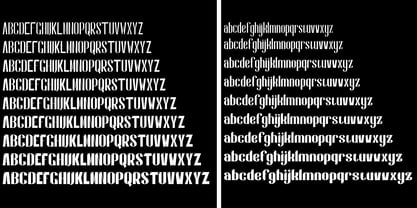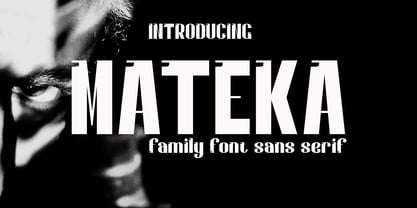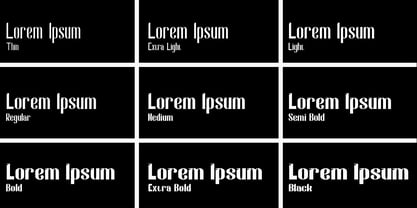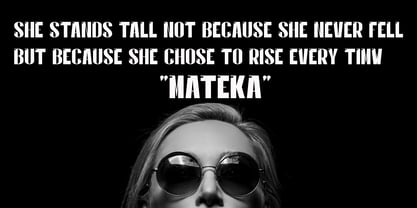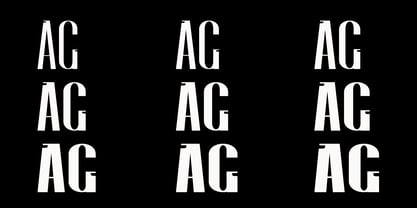
Mateka
by Canden Meutuah
The Mateka Font Family was designed by Canden Meutuah and published by Canden Meutuah. Mateka contains 10 styles and family package options. More about this family
Mateka is a striking sans serif font family that combines bold, modern character shapes with a unique industrial twist. Its tall, heavy uppercase letters are designed to command attention, while the distinctive notched terminals on each glyph add a touch of vintage flair and originality. Mateka is highly versatile, perfect for creating powerful headlines, impactful posters, editorial layouts, album covers, branding projects, and more.
Each letterform is meticulously crafted to balance readability with artistic expression, ensuring your designs stand out with confidence and style. The font’s clean lines and geometric structure make it suitable for both digital and print applications, while its distinctive personality sets it apart from ordinary sans serif typefaces.
Whether you’re working on contemporary visual identities, creative advertising, or bold typographic compositions, Mateka offers a fresh, professional aesthetic that captures attention and leaves a lasting impression. With its combination of robust weight and unique detailing, Mateka is a must-have for designers seeking to elevate their typography projects.